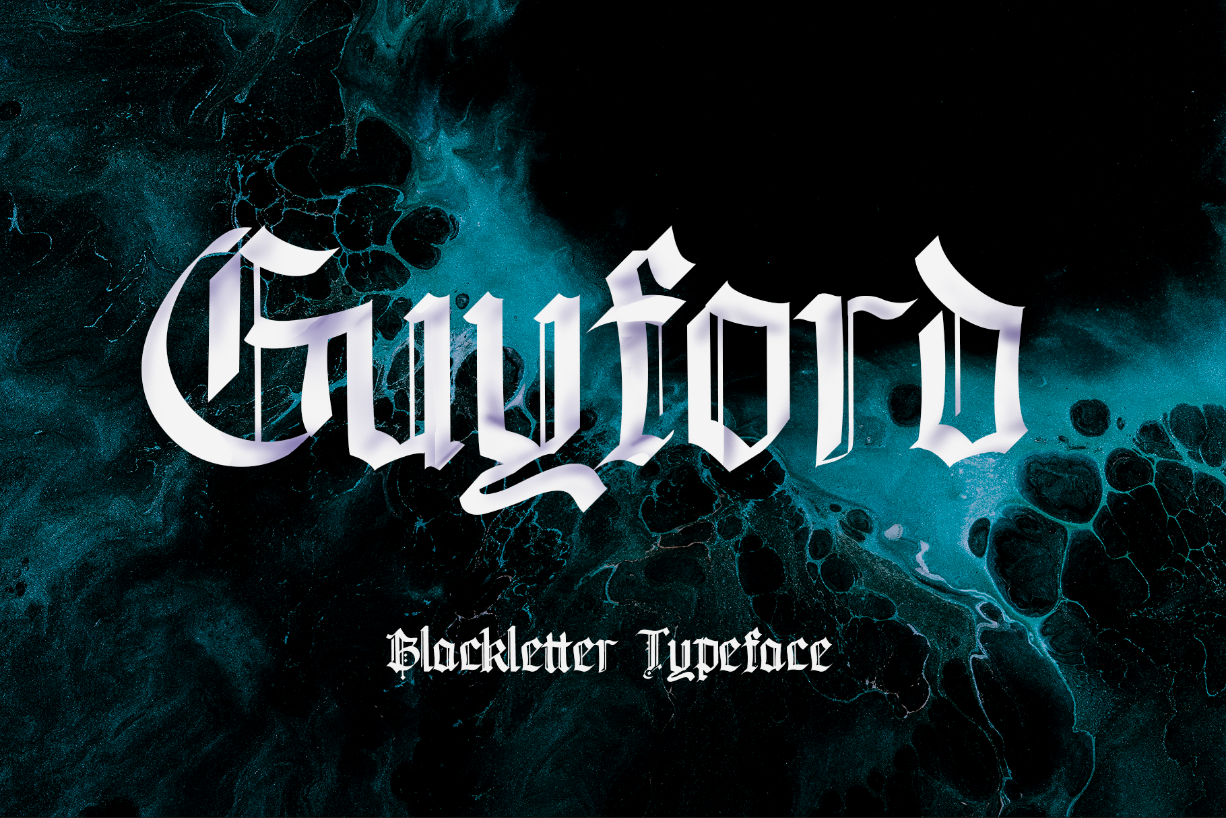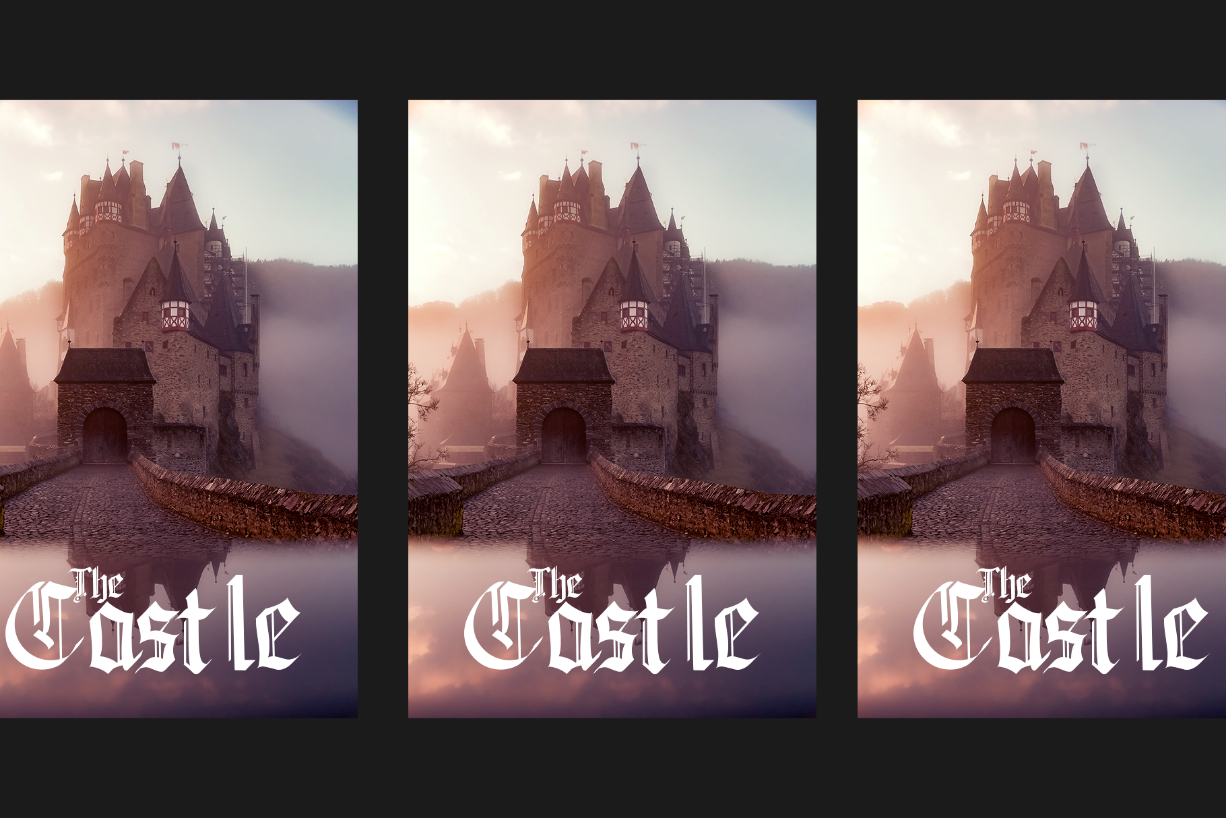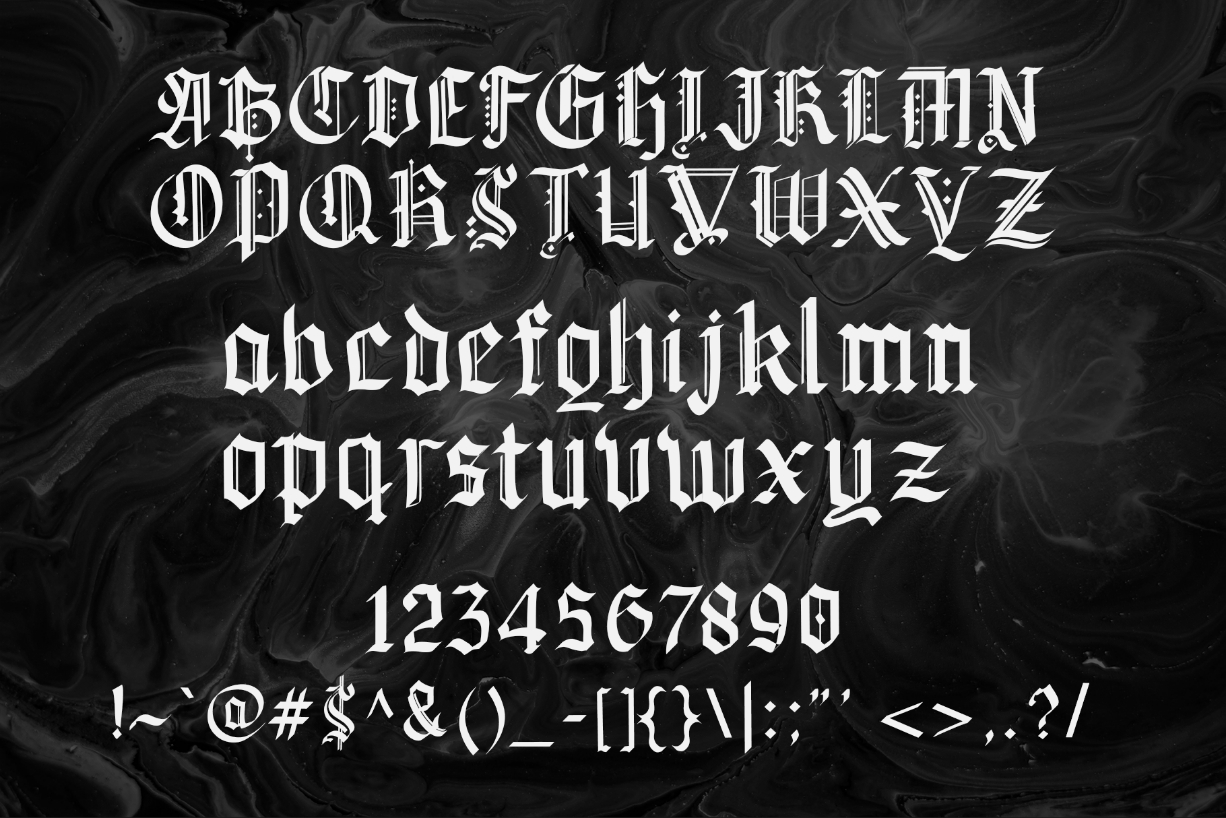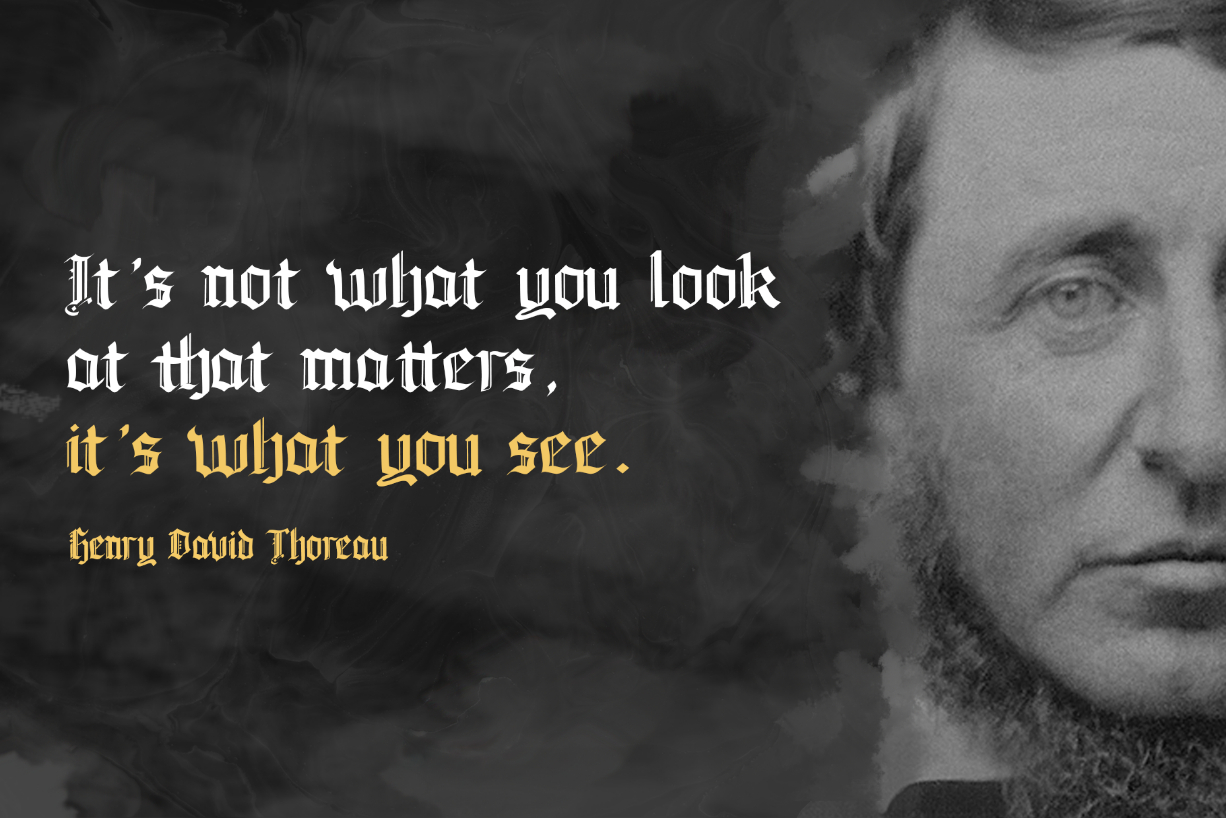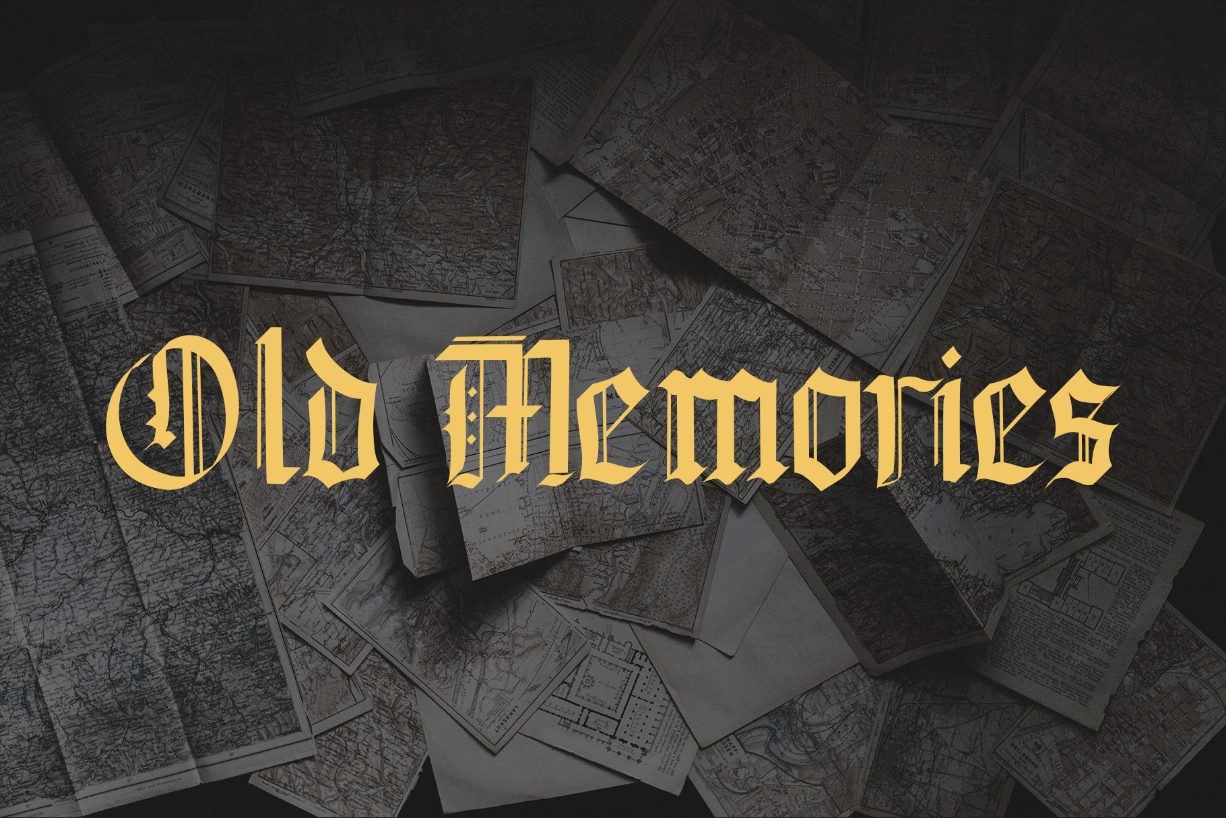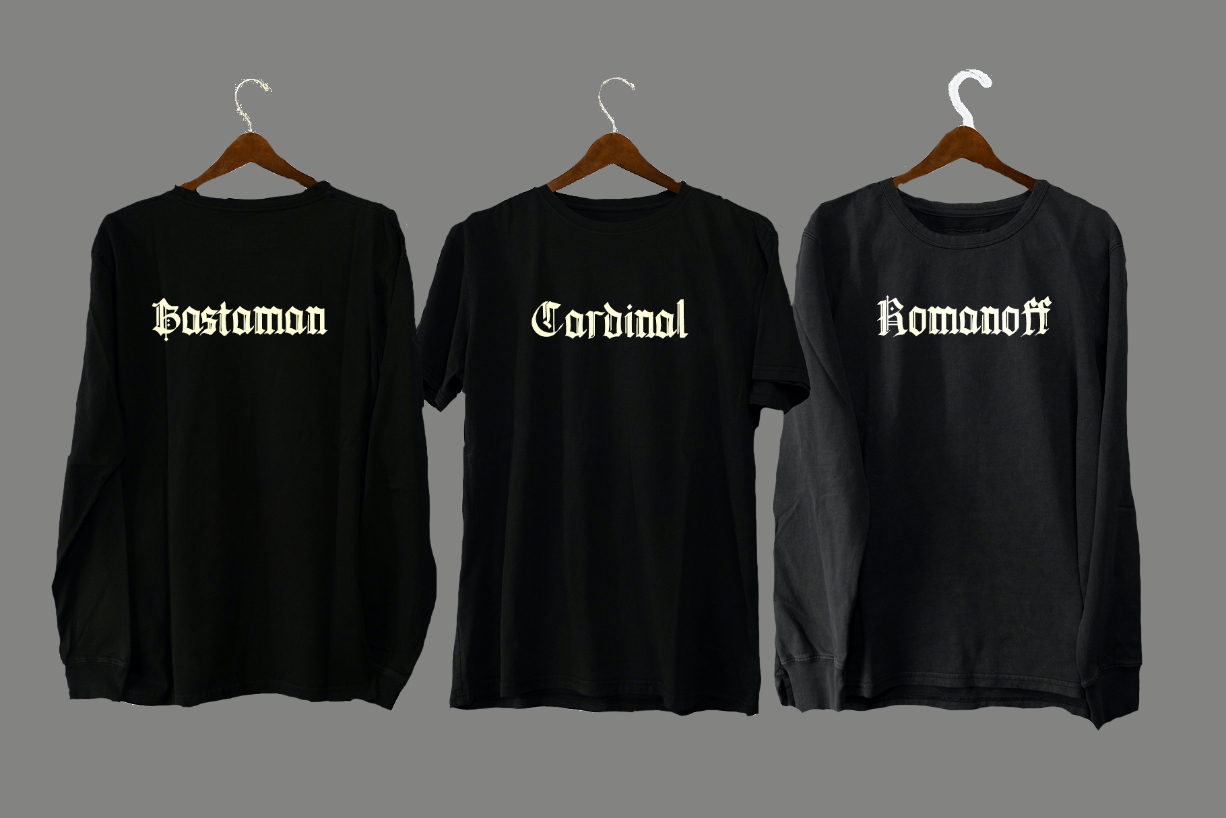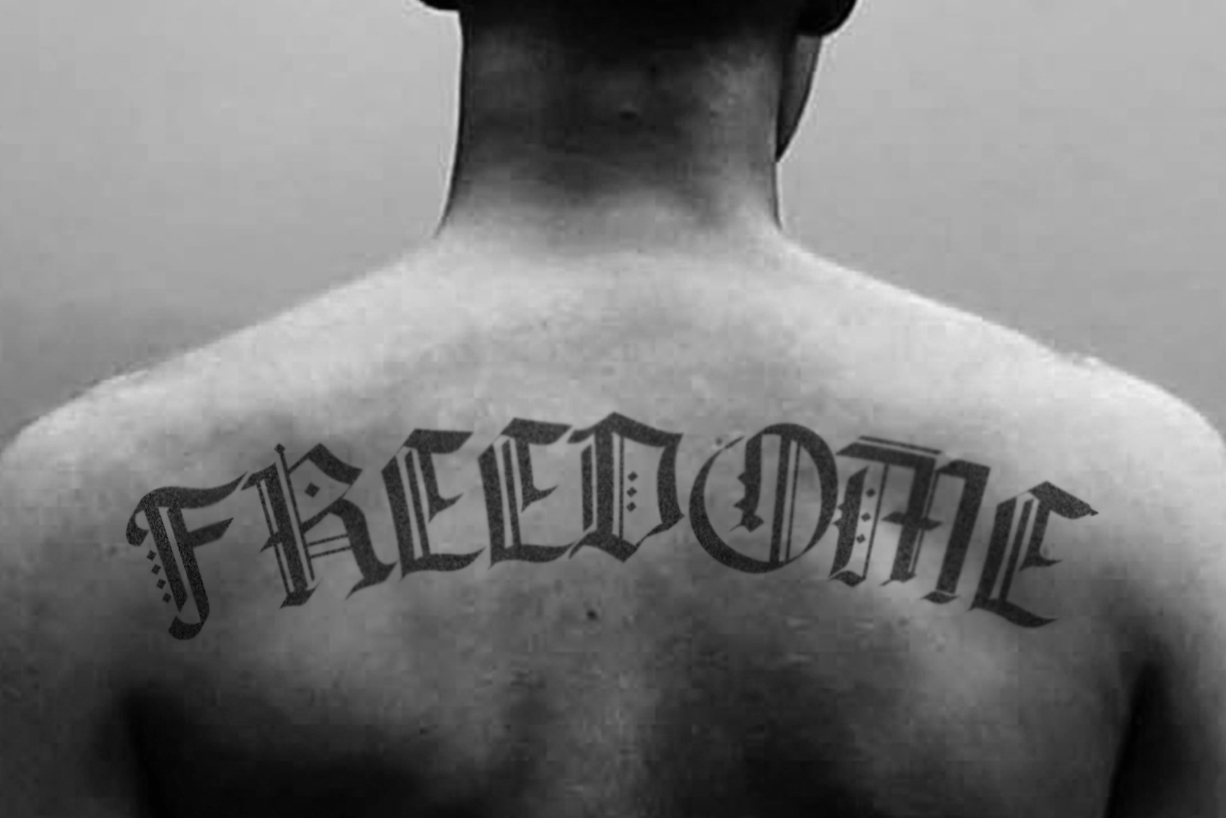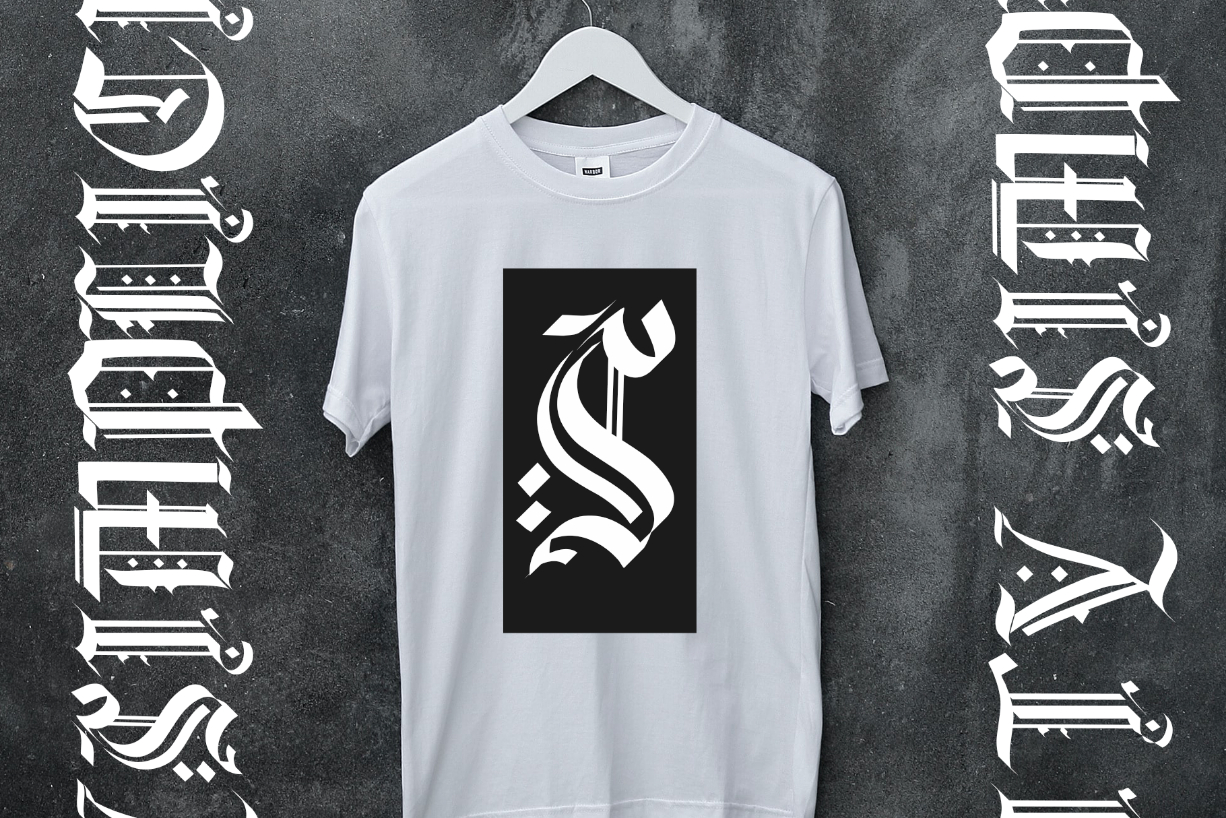
Guyford Font
About Guyford Font
Guyford is an incredibly bold and cool looking blackletter font. This font is ideal for writing legal documents, letters, or pretty much anything else that requires a distinct and assertive touch.